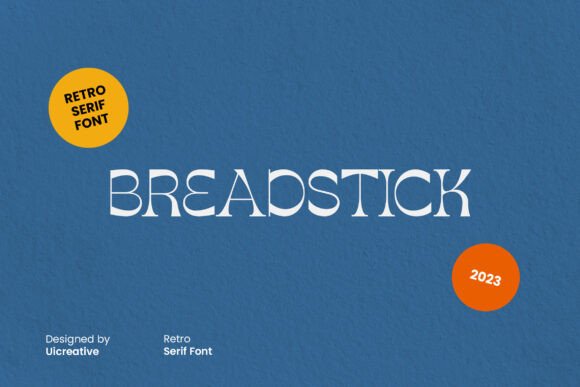
Breadstick: A Thoughtful Serif for Editorial Calm
It was a quiet Tuesday morning—coffee still warm, notebook open—and I was finalizing the cover layout for a new digital magazine feature on slow living. The theme centered on intentionality: unhurried mornings, handwritten notes, tactile paper, and typography that breathes. I’d tested six fonts already, but none settled quite right. Then I opened Breadstick.
Right away, it felt like stepping into a well-lit书房—warm, unhurried, quietly confident. Breadstick is a retro serif typeface, yes—but not in the way you might expect. It doesn’t shout mid-century or mimic vintage signage. Instead, it carries the gentle authority of a well-bound book from the 1940s: balanced proportions, subtle bracketing on its serifs, soft contrast between thick and thin strokes, and a rhythm that invites pause rather than rush. Its personality isn’t nostalgic—it’s grounded. Thoughtful. Human-scaled.
I used Breadstick for the feature title: “The Space Between Tasks”. Set large and centered over a muted linen background, it held weight without heaviness. The letterforms have just enough character to feel distinctive—notice the graceful curve of the lowercase g, the delicate taper of the t’s crossbar—but never at the expense of clarity. That balance makes Breadstick especially effective where editorial tone matters most: blog headers, ebook covers, newsletter banners, chapter openers, and printed guides.
For this magazine feature, I paired Breadstick with a clean, low-contrast sans serif for body text—something neutral and highly legible on screen and in PDF exports. That pairing worked beautifully: Breadstick anchored the hierarchy as a display font, while the sans serif carried the long-form narrative with ease. It’s a classic serif/sans combination, but Breadstick brings something quieter and more refined to the role. Unlike bolder display serifs, it doesn’t compete with the content—it frames it.
What surprised me most was how gracefully Breadstick translated across formats. On mobile, its generous x-height and open counters kept titles crisp even at smaller sizes. In print, its ink-friendly stroke contrast ensured sharp reproduction on uncoated stock. And in the exported PDF of the feature—meant for readers to download and read offline—the font embedded cleanly, preserving spacing and ligatures where available. (I did double-check the included OTF files: Breadstick offers regular and italic, plus stylistic alternates and discretionary ligatures—small touches that elevate a wedding guide’s monogram or a coaching workbook’s section dividers.)
I also tried Breadstick in a printable planner I’m designing for mindful habit tracking. There, it shines in headers and weekly affirmations—“Begin again,” “Notice what’s here,” “Hold space”—where tone matters more than density. Its gentle serifs lend warmth to otherwise functional layouts, and its measured pace subtly reinforces the planner’s intent: not efficiency at all costs, but presence within structure.
That said, Breadstick isn’t intended for extended body copy. It’s a serif font built for impact and identity—not endurance. For paragraphs, captions, navigation, or footnotes, lean on a companion serif with higher readability (like a sturdy Garamond or Georgia variant) or a friendly sans (think Inter, Lato, or even system fonts for web). Breadstick thrives where attention is earned: a recipe ebook’s title page, a lifestyle blog’s masthead, a wedding invitation’s names, a course PDF’s module headings, or a digital newsletter’s featured quote graphic.
Its editorial appeal lies in restraint. In an age of high-contrast, variable, ultra-thin, or aggressively geometric fonts, Breadstick offers something rarer: quiet confidence. It doesn’t need animation, color shifts, or distortion to feel current. It feels modern because it respects time—both the time it takes to read, and the time it takes to live well.
One afternoon, I set Breadstick alongside a handwritten script font for a printable quote card—“Tend your own garden”—and the contrast was effortless. The script added intimacy; Breadstick offered structure and sincerity. No clashing, no visual noise. Just two voices, each clear in their role. That’s the mark of a well-designed serif: it collaborates, rather than dominates.
If you’re redesigning a blog header and want something warmer than Helvetica but more timeless than a trendy display font, Breadstick fits. If you’re building a recipe ebook and need a title face that evokes heirloom cookbooks without feeling costumed, Breadstick delivers. If your digital magazine values mood as much as message—or your coaching workbook asks readers to slow down—this serif becomes part of the experience, not just decoration.
Typography, at its best, doesn’t call attention to itself. It settles into the background like good lighting—revealing, supporting, never obscuring. Breadstick does exactly that: it gives words room to land, ideas space to breathe, and readers permission to linger. Not every font earns that kind of trust. This one does.